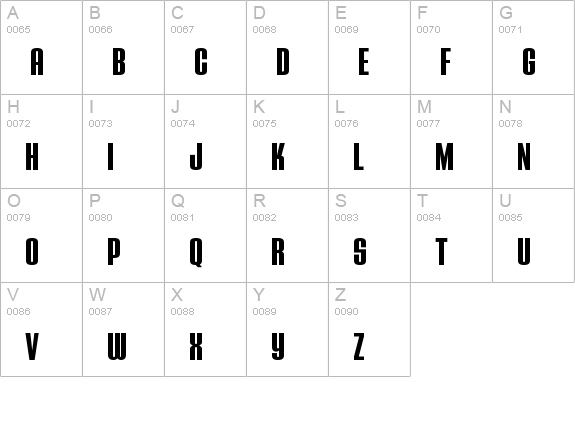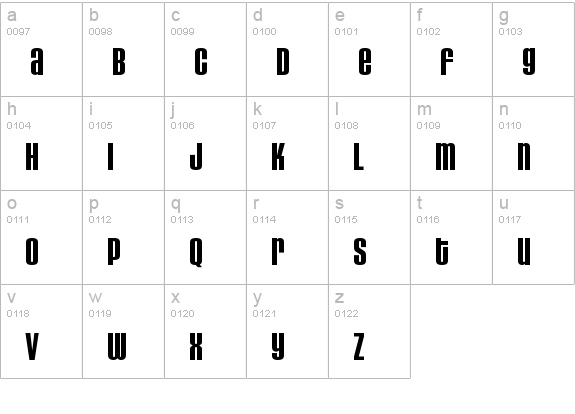
HouseGothicHG23Cond THRDFIL font is a stylish and versatile typeface that offers a unique blend of modernity and classic Gothic aesthetics. With its condensed design and intricate details, this font is perfect for adding a touch of sophistication to your projects. Its sharp edges and bold strokes give it a strong presence, making it ideal for titles, headlines, and other prominent text. What sets HouseGothicHG23Cond THRDFIL font apart is that it is available for free download at FontsMarket.com. This means you can easily access and use this striking font for any personal or commercial project without any cost. Whether you're designing a website, creating posters, or crafting branding materials, HouseGothicHG23Cond THRDFIL font will elevate your work with its distinctive look and feel. Don't miss out on the opportunity to enhance your designs with this exceptional font that combines elegance with a touch of edginess. Download HouseGothicHG23Cond THRDFIL font for free today and unleash your creativity with its captivating style.